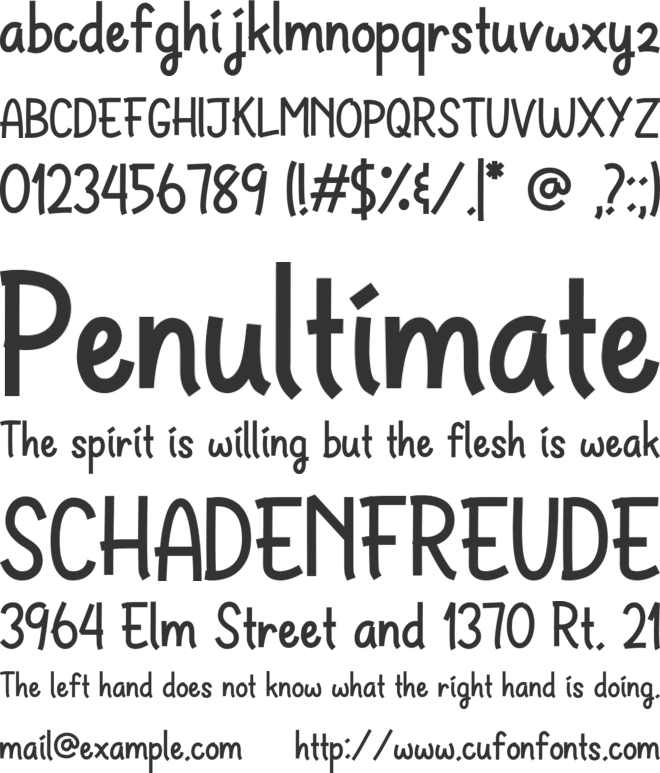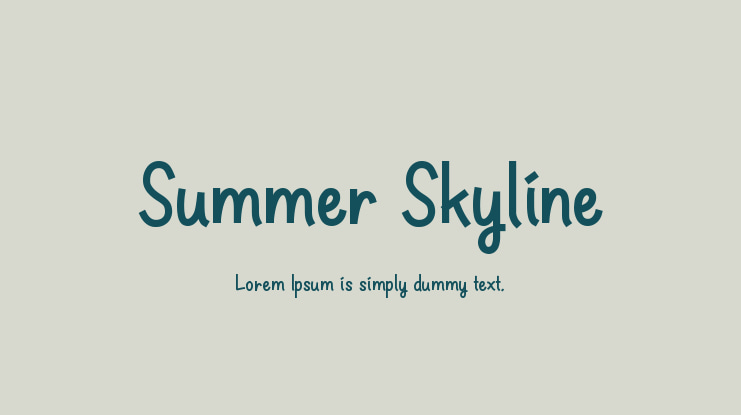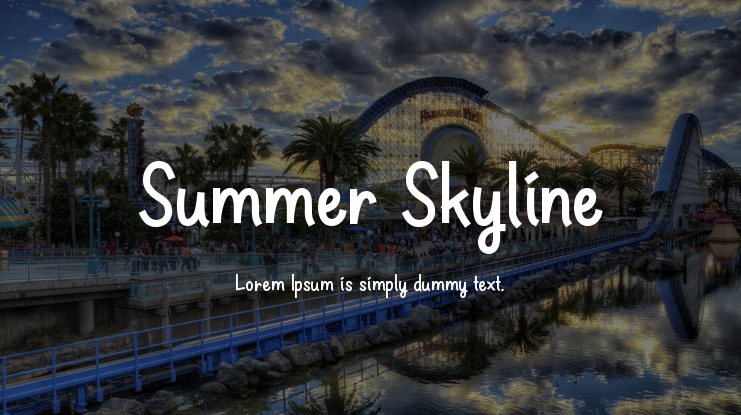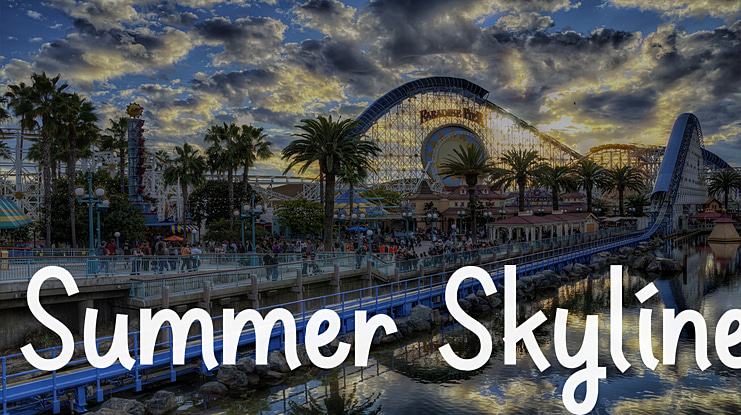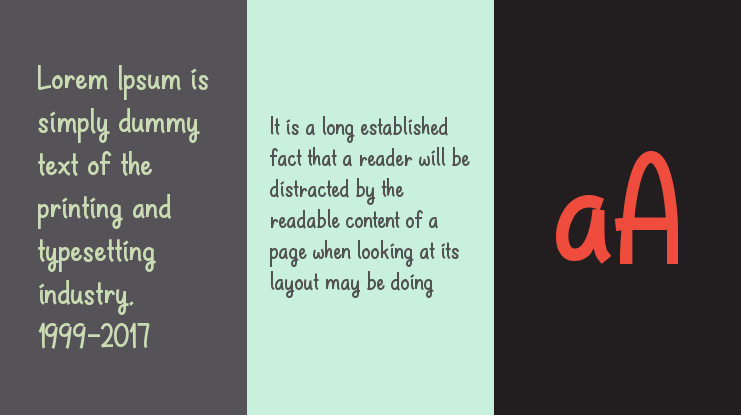
Summer Skyline Font
Summer Skyline is a Handwritten Sans Serif font. It is perfect for logos, birthday cards, quotes, headlines, posters, Clothing and every other designs.